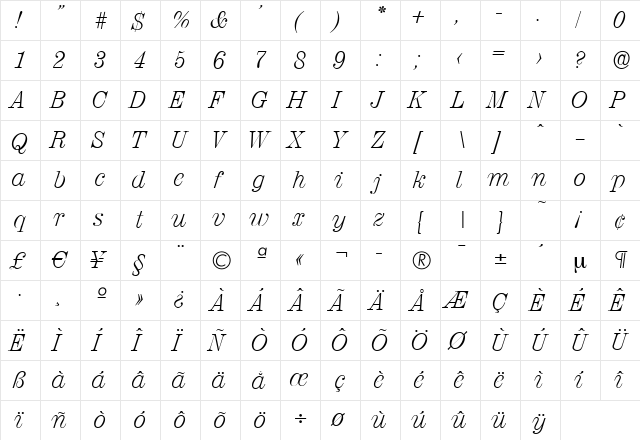
NormanBecker-ExtraLight Italic Font Preview
Design Context for NormanBecker-ExtraLight Typeface
NormanBecker-ExtraLight offers clean, dependable letterforms without strong stylistic allegiance, making it a practical choice for designers who need flexibility. The slanted form adds forward momentum and visual energy. The delicate stroke weight brings airiness and refinement to layouts.
Pro Tip: Try NormanBecker-ExtraLight for annotation and caption copy alongside an upright companion — the contrast in angle creates a dynamic but ordered typographic system.